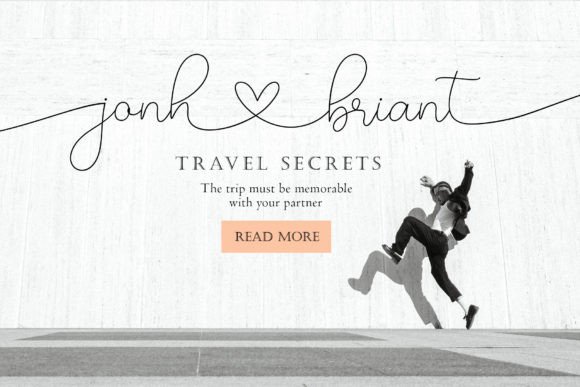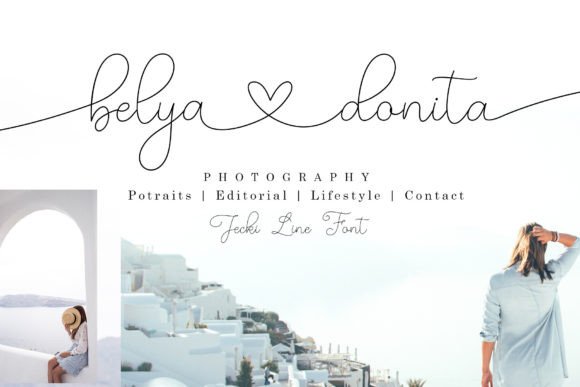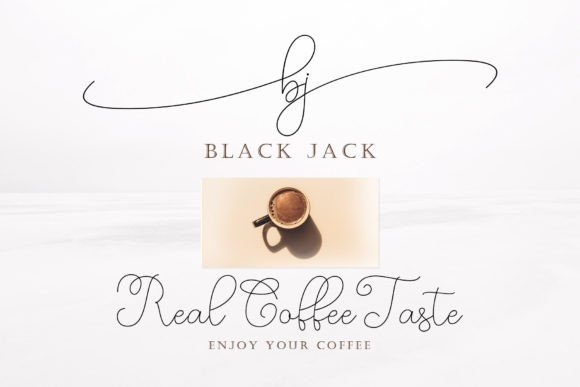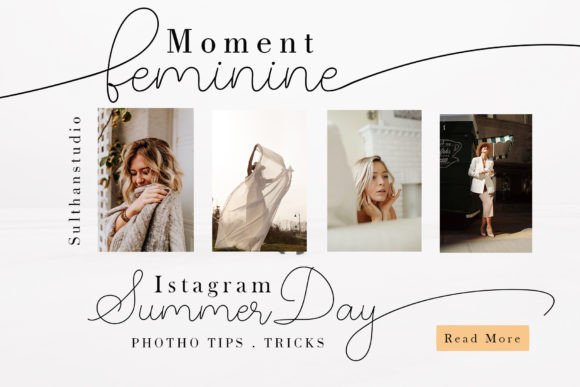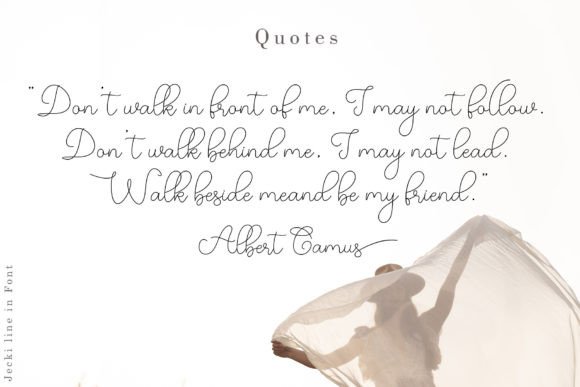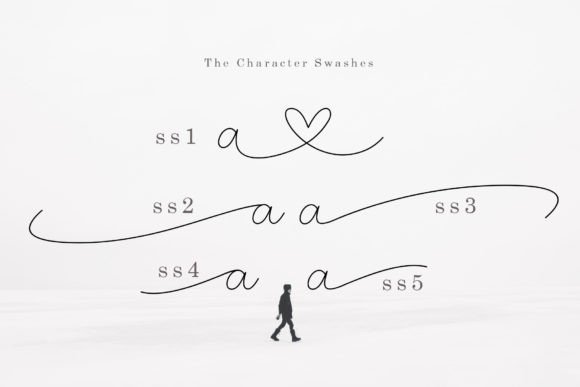
Introduction to Jecki Line Font
Have you ever found yourself rummaging through your design library, searching for the perfect font to add a touch of whimsy to your latest project? That’s exactly what happened to me the other day, as I was working on a romantic wedding invitation design. I wanted something that would transport the couple’s guests to a world of love and nostalgia. And then, I stumbled upon it – the enchanting Jecki Line Font.
As a designer, you know how valuable it is to have a reliable design resource at your disposal. The Jecki Line Font is more than just a pretty face – it’s a high-quality, versatile script font that’s perfect for a wide range of applications, from greeting cards to headlines. And the best part? It’s available for free download, making it an incredible addition to your design arsenal.
With its transparent background and beautiful, flowing lines, the Jecki Line Font is sure to add a touch of magic to your next creative project. Whether you’re designing a wedding invitation, a greeting card, or even a social media post, this font is guaranteed to make your design stand out.
Key Features of Jecki Line Font
- Unique Hand-Drawn Design: The Jecki Line Font is a hand-drawn design, making it perfect for creative projects that require a personal touch.
- Transparent Background: This font features a transparent background, allowing for seamless integration with any design resource.
- High-Quality Typography: The font is designed with high-quality typography in mind, ensuring that it looks great on any screen or print material.
- Resolution: The font is designed to be scalable, making it suitable for use at various resolutions, from low-resolution print materials to high-resolution digital displays.
- Perfect for Creative Projects: The Jecki Line Font is an excellent choice for designers working on creative projects, including branding, advertising, and editorial design.
Honest Review: Jecki Line Font
I recently had the chance to work with the Jecki Line Font on a creative project, and I must say, it’s been a game-changer. This font is a fantastic design resource that can elevate any project.
- ✨ One of the standout features of the Jecki Line Font is its clean and modern design. It’s perfect for creating a sleek and professional look in any project.
- ✨ The font supports a transparent background, which gives designers the flexibility to use it in a variety of creative ways.
While the Jecki Line Font is a high-quality font, there are a few limitations to be aware of. ⚠️ For example, the font may not be suitable for projects that require a bold or dramatic look.
Overall, I’m extremely impressed with the Jecki Line Font. Its modern design and flexibility make it a valuable addition to any designer’s toolkit. If you’re looking for a high-quality font for your next creative project, I highly recommend giving the Jecki Line Font a try.
Tips for Getting the Most Out of Jecki Line Font
Use the Jecki Line Font to add a touch of sophistication to your designs. Experiment with different font sizes and colors to create a unique look. Combine the font with other design elements, such as images and shapes, to create a visually appealing design.
The Jecki Line Font is perfect for a variety of creative projects, including: logos, business cards, brochures, and social media graphics. Its high quality and transparent background make it a valuable design resource for any project.
Q: Is the Jecki Line Font a high-quality font?
Yes, the Jecki Line Font is a high-quality font designed to meet the needs of professional designers and artists. Its clean lines, elegant curves, and precise typography make it an excellent choice for any creative project, from branding and advertising to editorial and publishing.